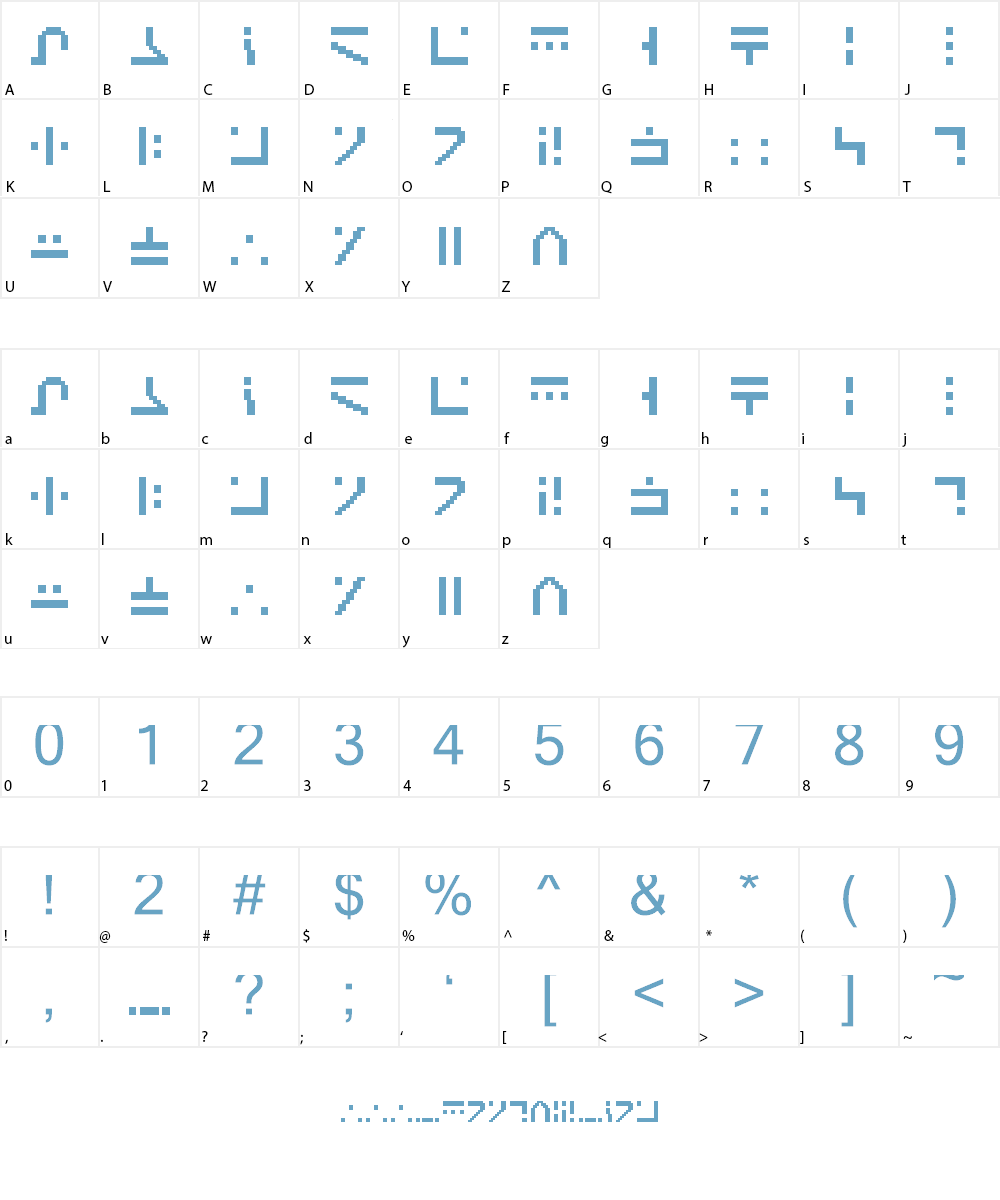
Standard Galactic Alphabet Pixies(named as SGA Pixies due to the font's name being considered too long) is a bitmap restoration of Commander Keen's fictional alphabet called "Standard Galactic Alphabet".
It is the another fandom typeface that do not contain most of the keyboard characters.